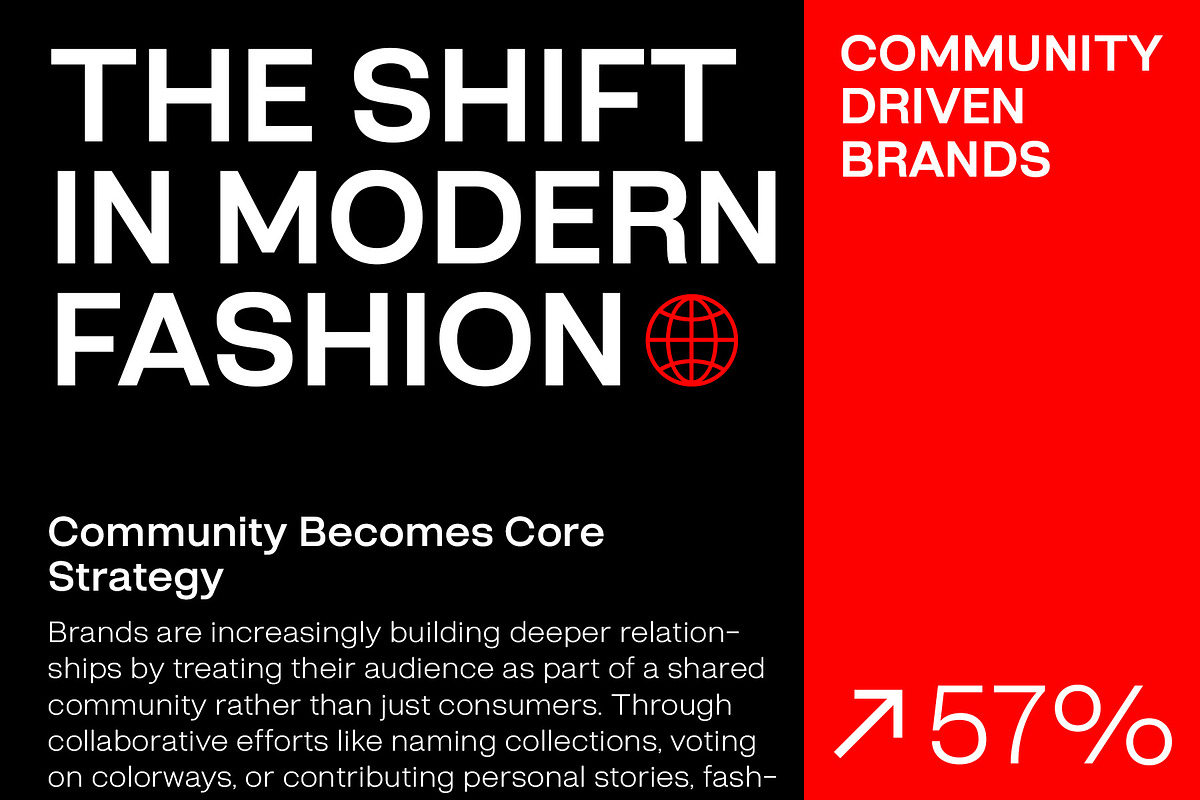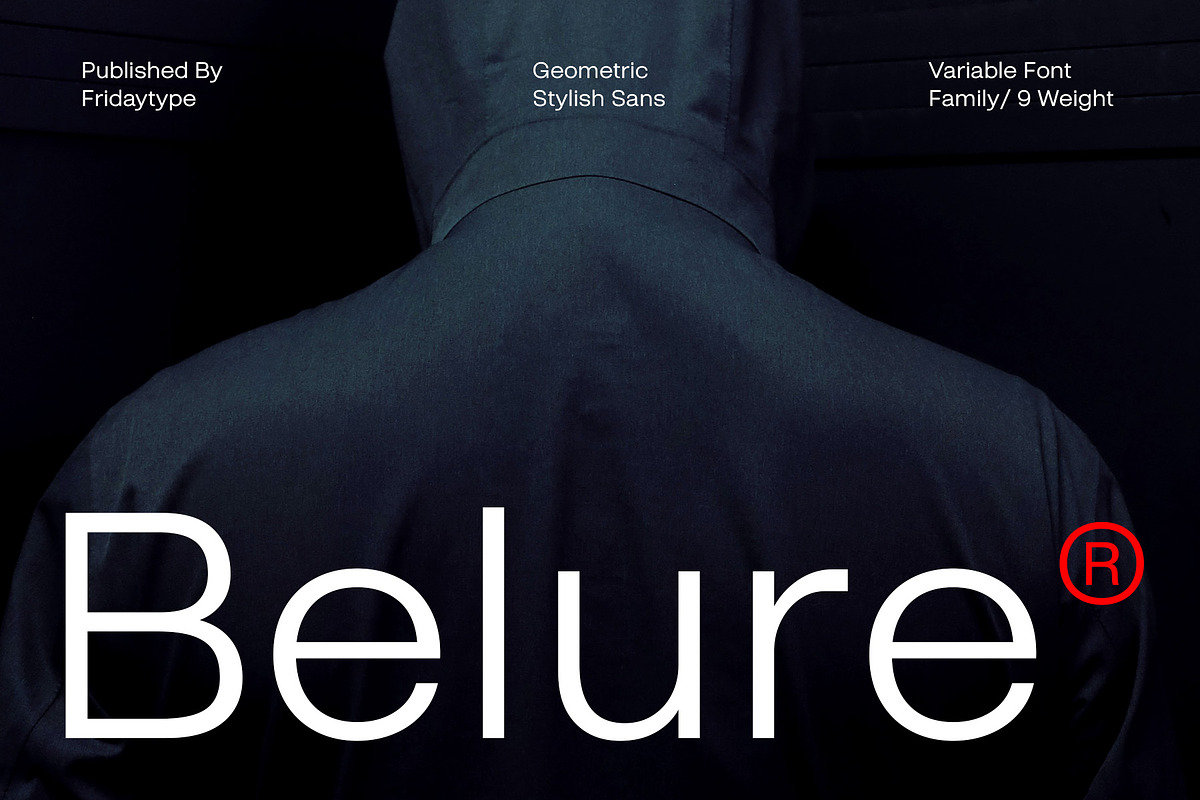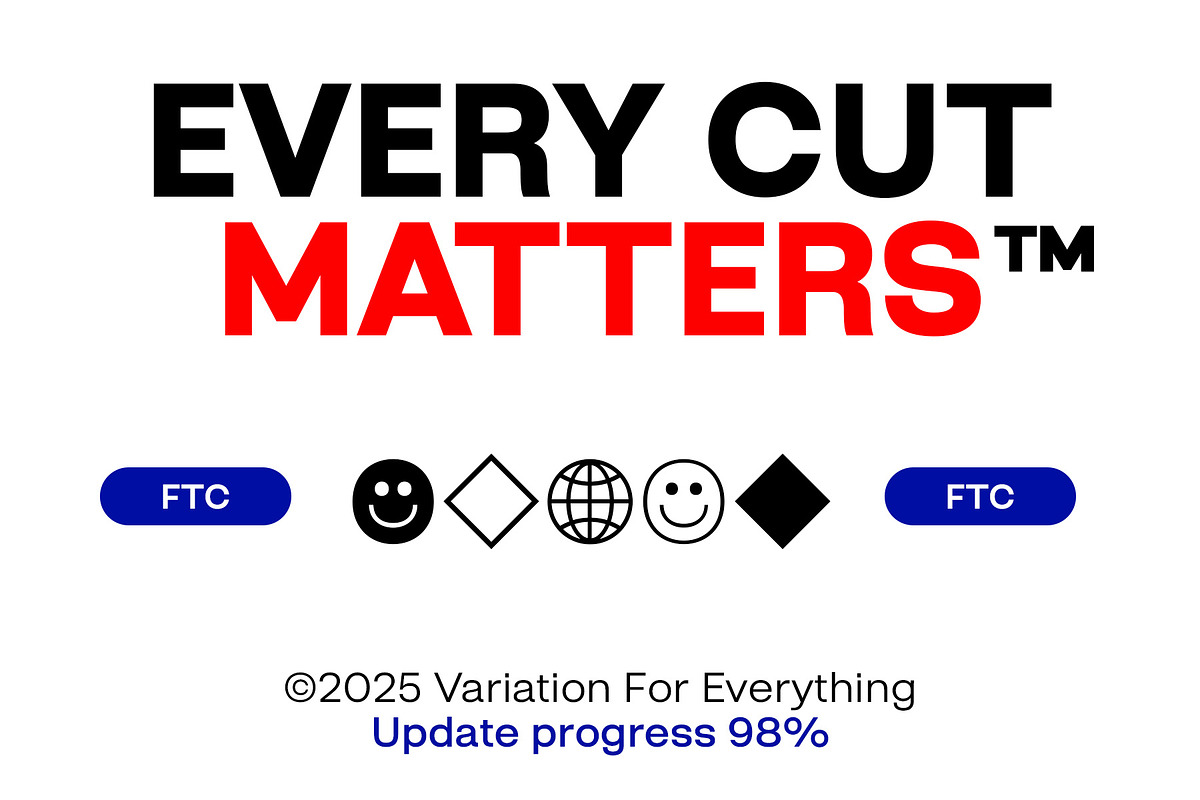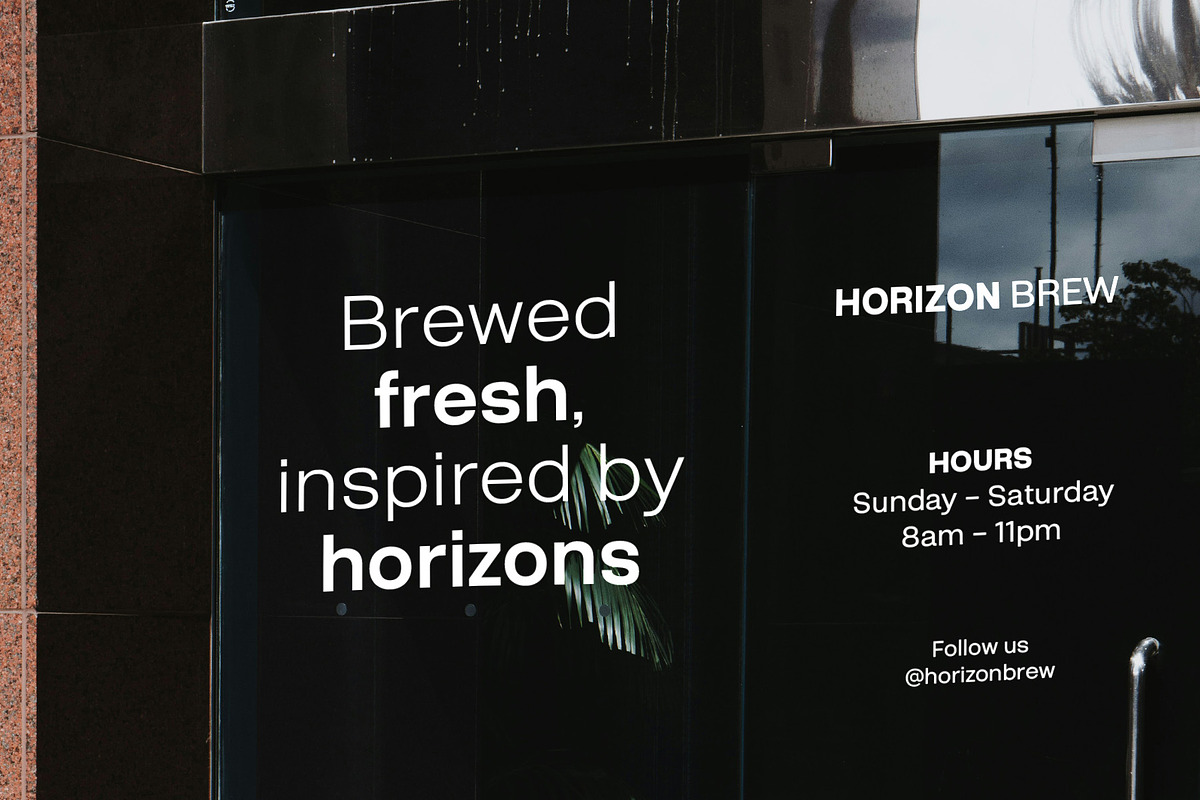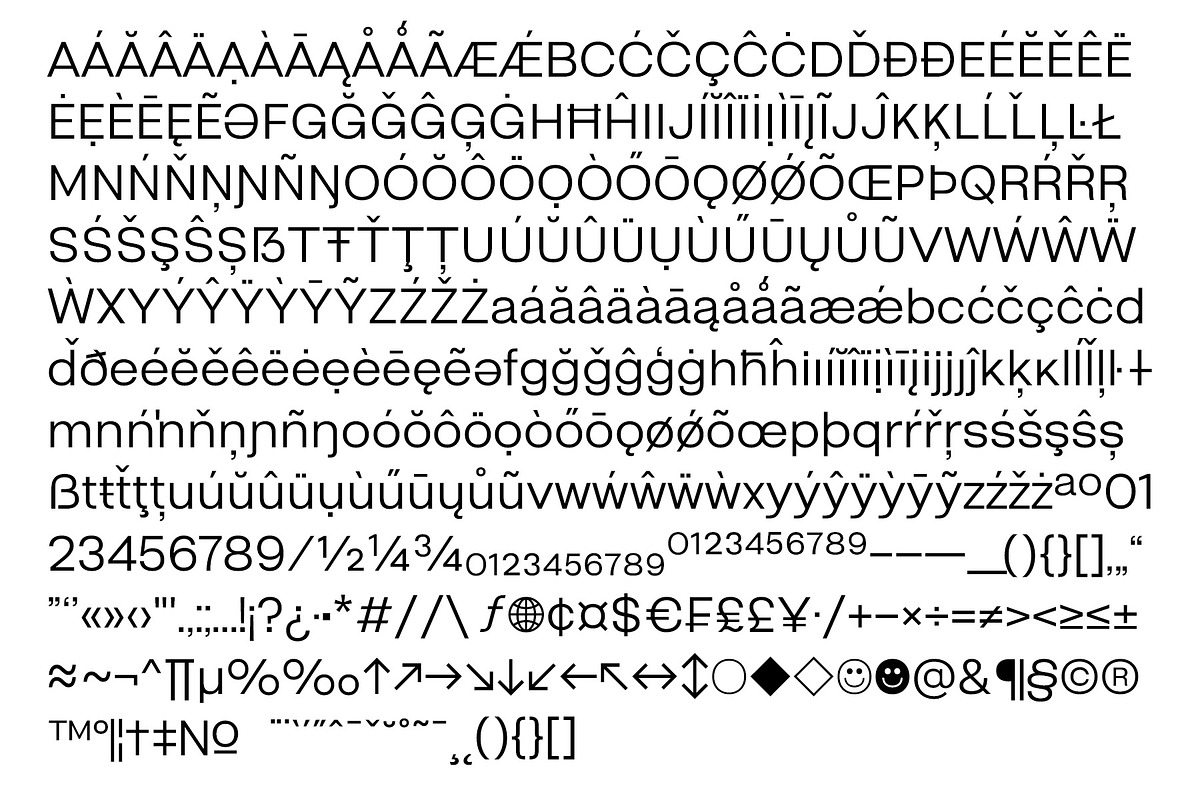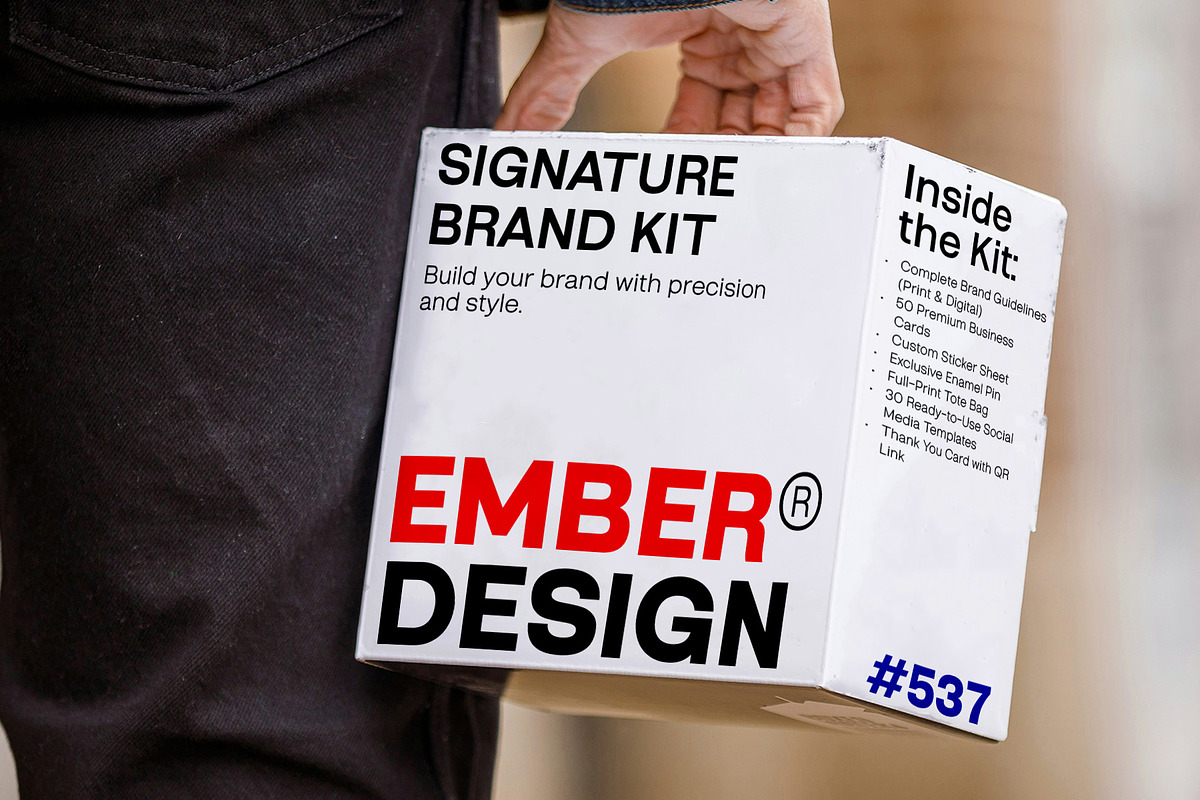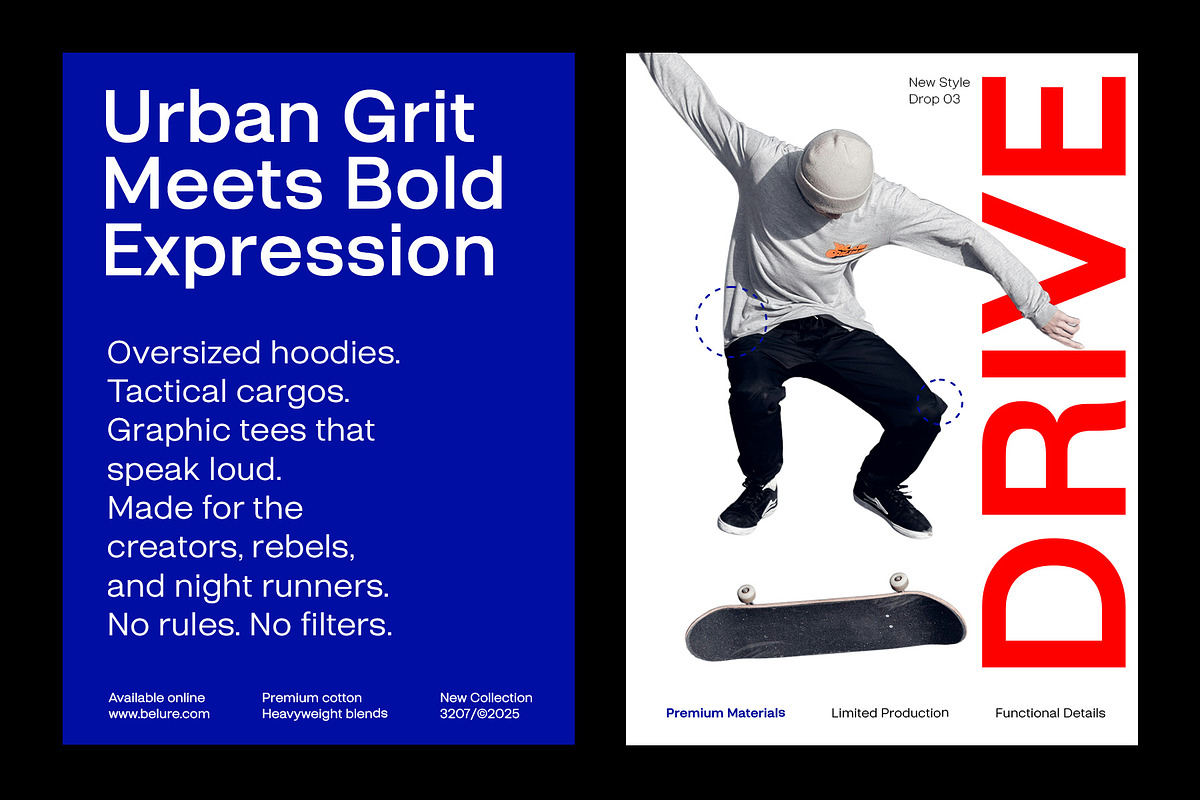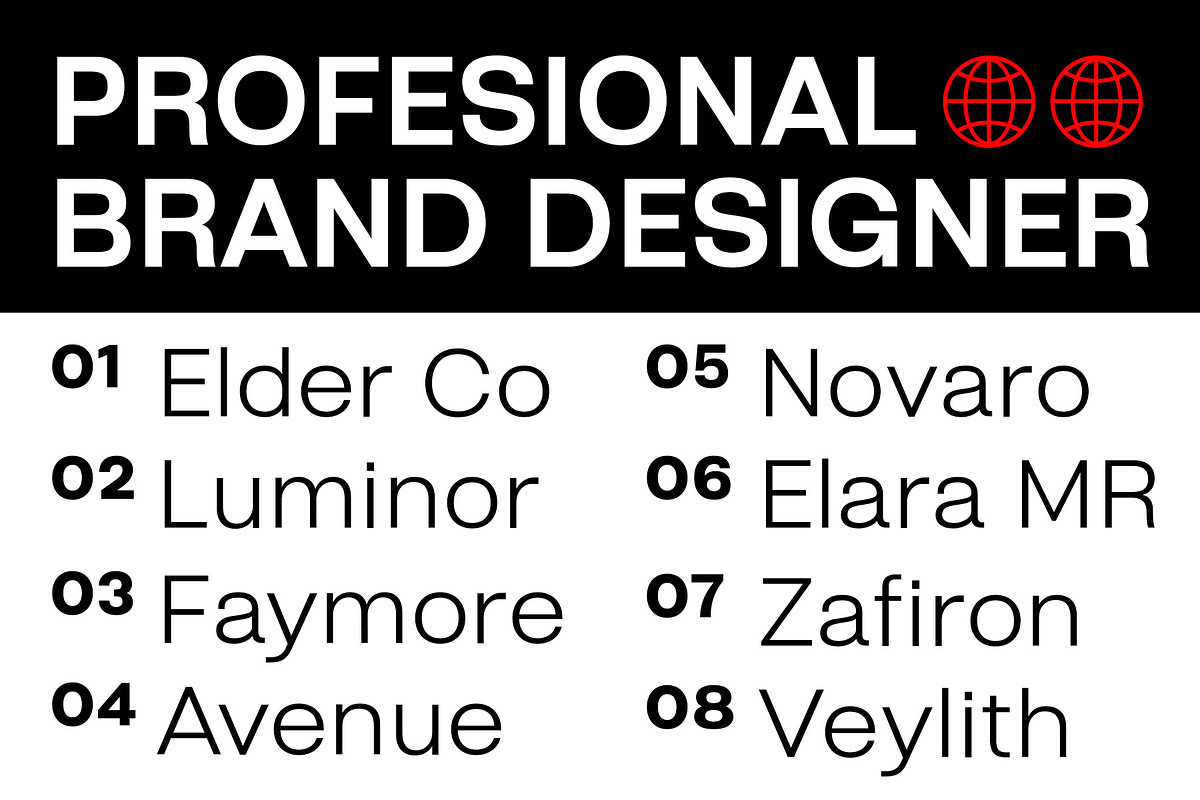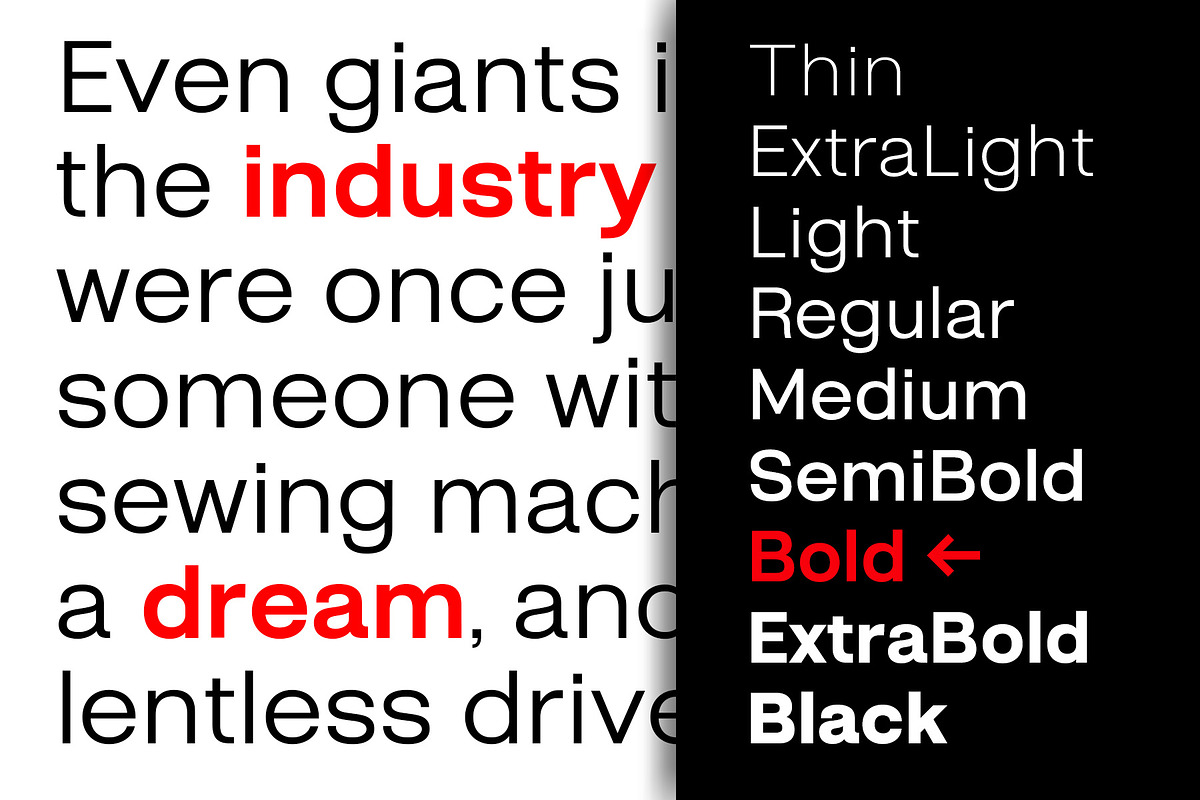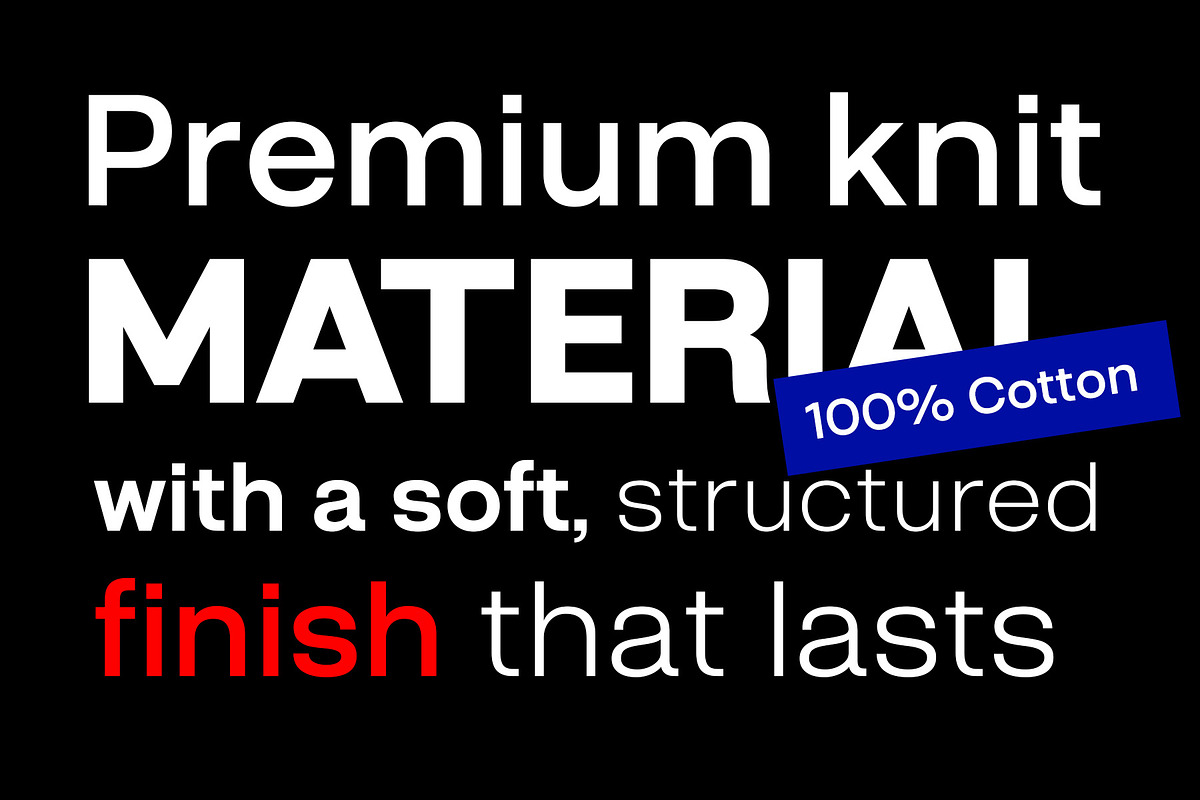
Belure — Geometric Stylish Sans
Belure is a geometric stylish sans with a modern, clean, and expressive character. Designed to support the visual identity of street culture—from streetwear, skate, fashion, to creative brands that dare to stand out. With precise yet flexible letterforms, Belure delivers both boldness and style.
This font comes in 9 variations (weights & styles), giving you the freedom to create anything from striking poster typography, sleek fashion editorials, to versatile branding identities.
Highlights
- Geometric Stylish Sans with a modern edge
- Perfect for streetwear, skate, fashion, design, and urban lifestyle
- Available in 9 variations + Variable Font for maximum flexibility
- Supports multilingual characters
- Ideal for logos, posters, apparel, editorials, and digital branding
Belure isn’t just typography—it’s the visual voice of street culture. With 9 versatile styles, it gives you the freedom to craft bold statements and timeless designs. Explore Belure and other exclusive fonts only at Fridaytype Company.